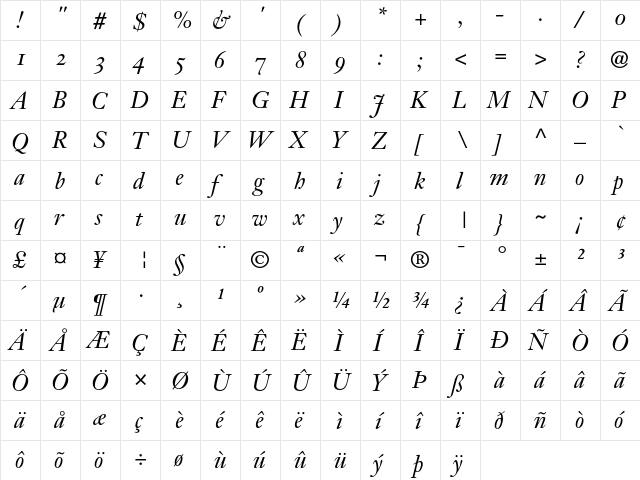
Janson Text 56 Italic Oldstyle Figures
Design Context for Janson Text Typeface
Janson Text carries the refined structure of traditional serif typography, with bracketed terminals and considered proportions that communicate credibility and craft. Its italic angle brings a sense of urgency and motion to the letterforms.
Pro Tip: Set Janson Text with slightly loose tracking in headlines to let each letterform's detail read clearly at display sizes.